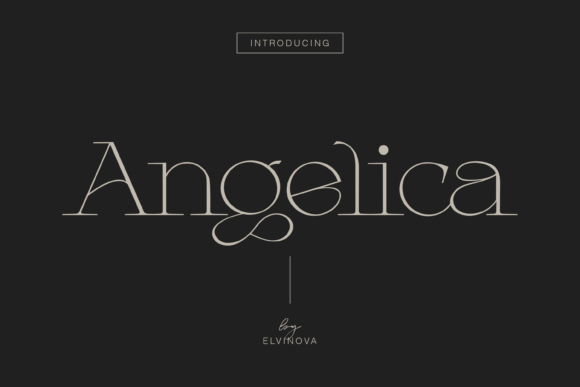
The Elegance of Angelica Font: A Designer’s Dream Come True
I’ll never forget the time I was working on a luxury branding project for a high-end fashion client. I had spent hours perfecting the design, but something was missing – the right font. I scrolled through countless options, but none seemed to capture the essence of sophistication and elegance I was looking for. That’s when I stumbled upon Angelica Font, and it was love at first sight! ✨
A Personal Review of Angelica Font
- ✨ Elegant serif design that exudes sophistication and refinement
- ✅ Delicate strokes and refined ligatures that bring timeless charm to every design
- ✅ Perfect for luxury branding, wedding invitations, editorial design, and high-fashion projects
- ✨ Highly versatile and adaptable to various design styles and formats
While Angelica Font is a stunning addition to any design project, there are a few things to keep in mind: ⚠️
- 🤔 Some users may find the font a bit too delicate for certain design applications, such as body text or small sizes.
- ⚠️ The font’s elegance may not be suitable for more playful or casual design projects.
- Experiment with OpenType features, such as ligatures and stylistic alternates, to add an extra touch of elegance to your design.
The Story Behind Angelica Font
Angelica Font was designed by a team of typographers who sought to create a font that embodied the elegance and sophistication of luxury branding. Inspired by classic serif fonts, they crafted a unique and refined design that’s perfect for high-end design projects. The font’s name, Angelica, reflects its angelic beauty and timeless charm.
Q: What is the best use for Angelica Font?
A: Angelica Font is perfect for luxury branding, wedding invitations, editorial design, and high-fashion projects.
Q: Can I use Angelica Font for body text?
A: While Angelica Font is a beautiful addition to any design project, it may not be the best choice for body text due to its delicate strokes and refined ligatures.
Q: Is Angelica Font available in different weights and styles?
A: Yes, Angelica Font comes in various weights and styles, allowing you to experiment with different typography options.